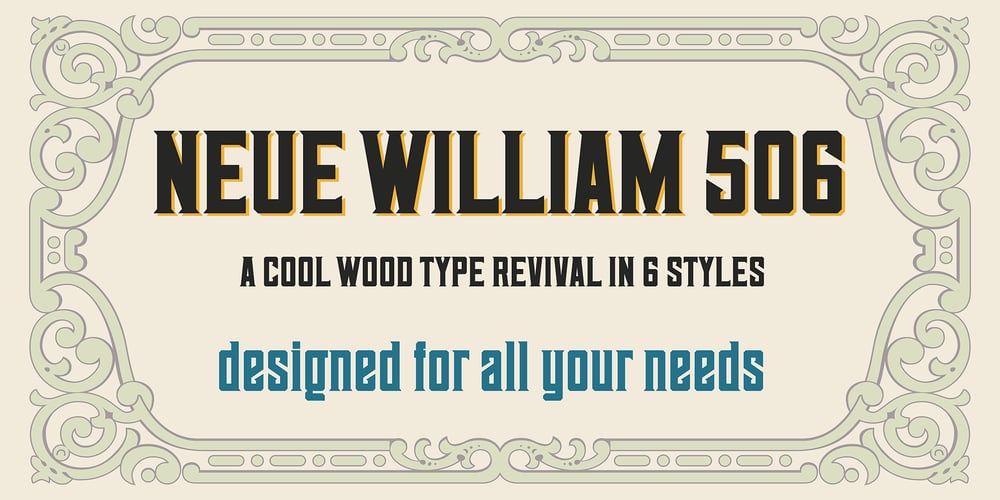
Neue William 506
Neue William 506 font
Neue William 506 Font Family was designed by Coert De Decker and published by Kustomtype. Neue William 506 contains 6 styles and family package options. Unleash your creativity with Neue William 506, a stunning typeface designed by Coert De Decker of Kustomtype. This font is a tribute to William Hamilton Page and his significant contributions to typography, originally inspired by the wood type featured in the 1890 Page’s New Process Wood Type Album.Offering six versatile weights, Neue William 506 is perfect for all graphic projects, from eye-catching advertising campaigns to unique logos and stylish t-shirt designs. Its elegant design empowers you to experiment and elevate your work.Don’t miss out on this exceptional typeface! Order Neue William 506 today and let it inspire your creativity while impressing your audience with its timeless charm.